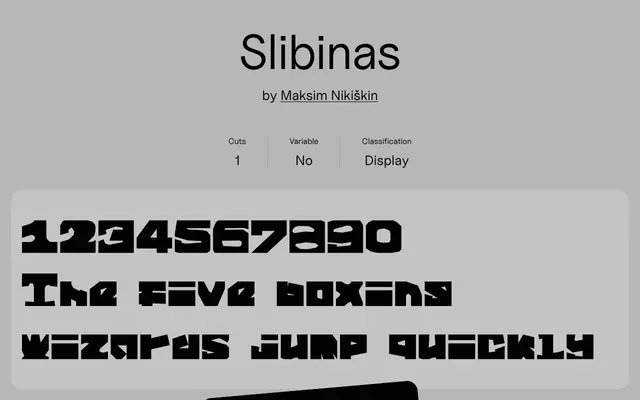
Slibinas
A single-cut display typeface by Maksim Nikiškin, released under the SIL Open Font License for free commercial and personal use.
A display typeface from Maksim Nikiškin, offered in one cut with no variable axis or italic companion. Released under the SIL Open Font License 1.1, it is free for commercial and personal use with standard redistribution conditions. Suited to headline and decorative applications where a distinctive single-weight voice is needed.
Listed explicitly as Display by the foundry; the name and single-cut release suggest a decorative or experimental display typeface not suited to extended text use.